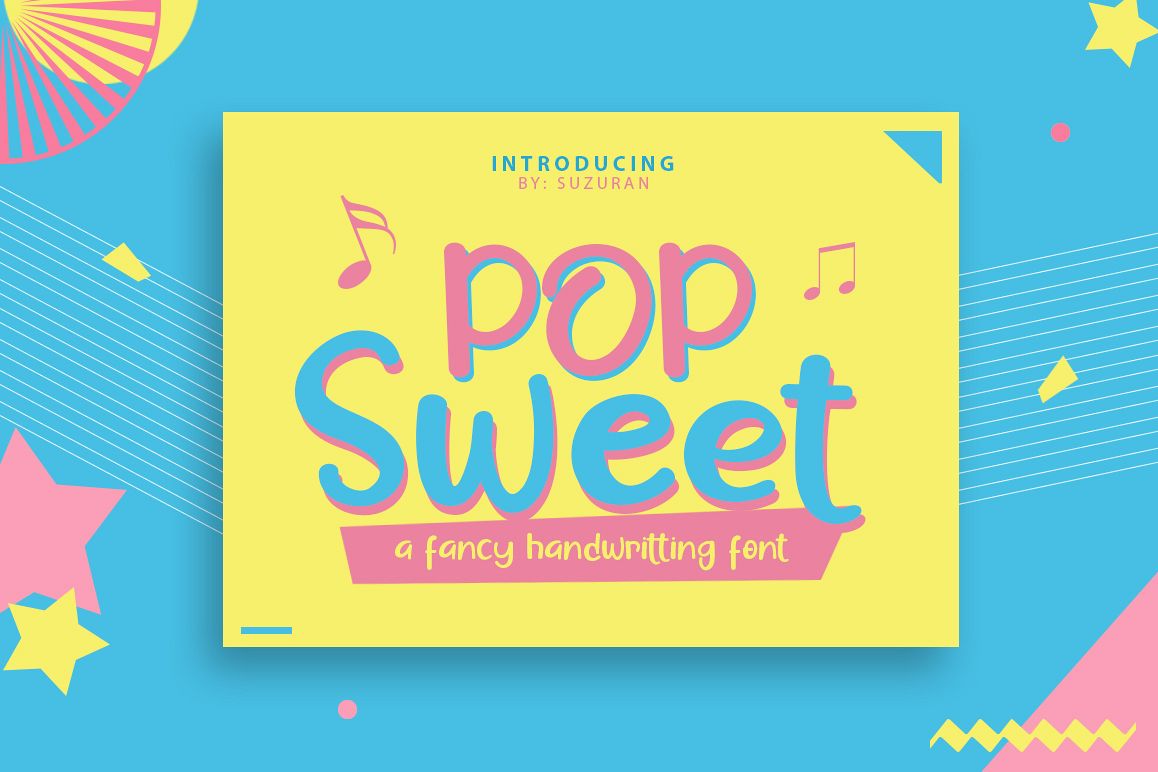
Pop Sweet, 2 font with cheerful theme for your fun project. Pop Sweet Display font has 2 different styles, regular & Extrude. Pop Sweet font suitable for logo, branding, greeting card, branding, poster and any design that you create.